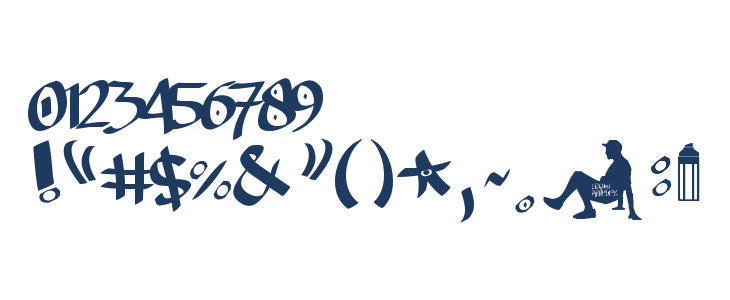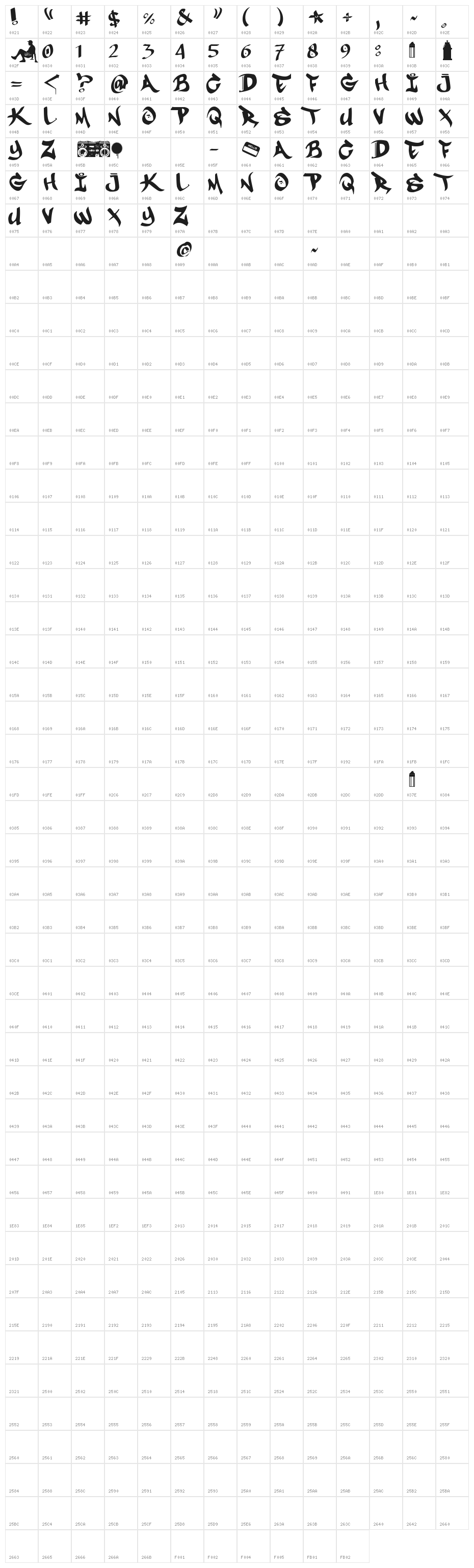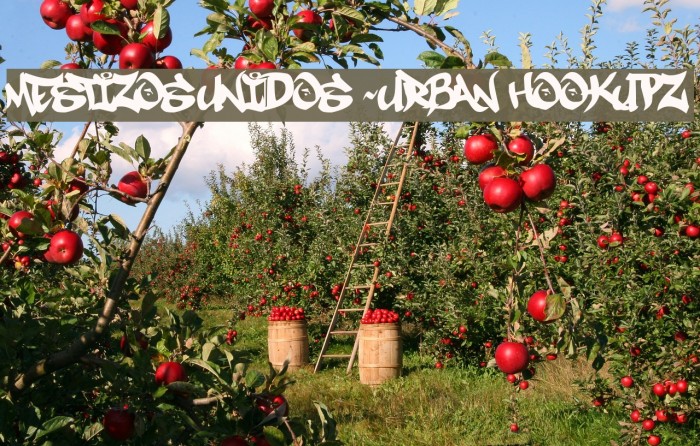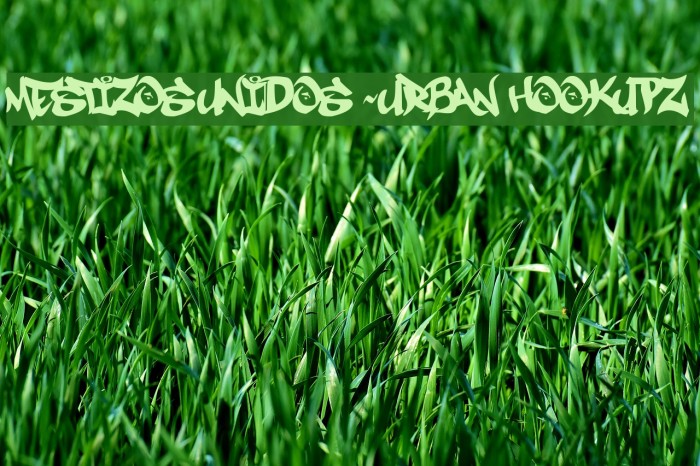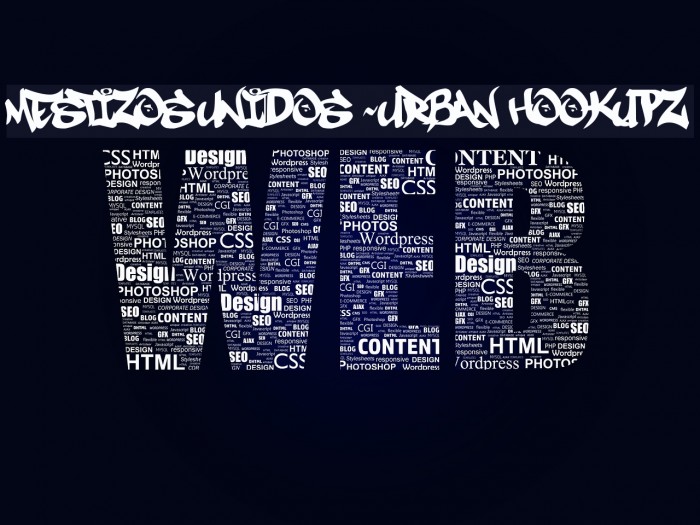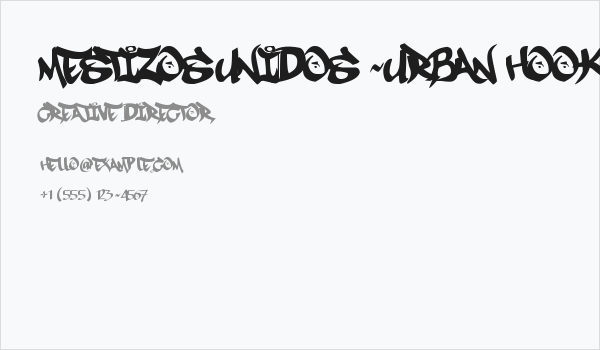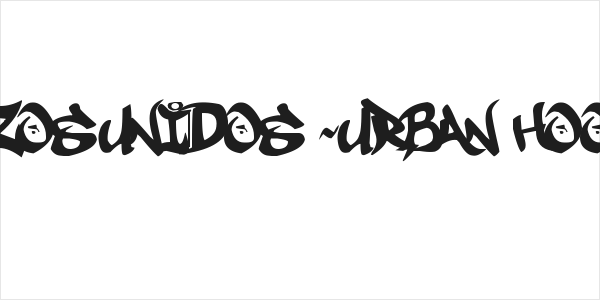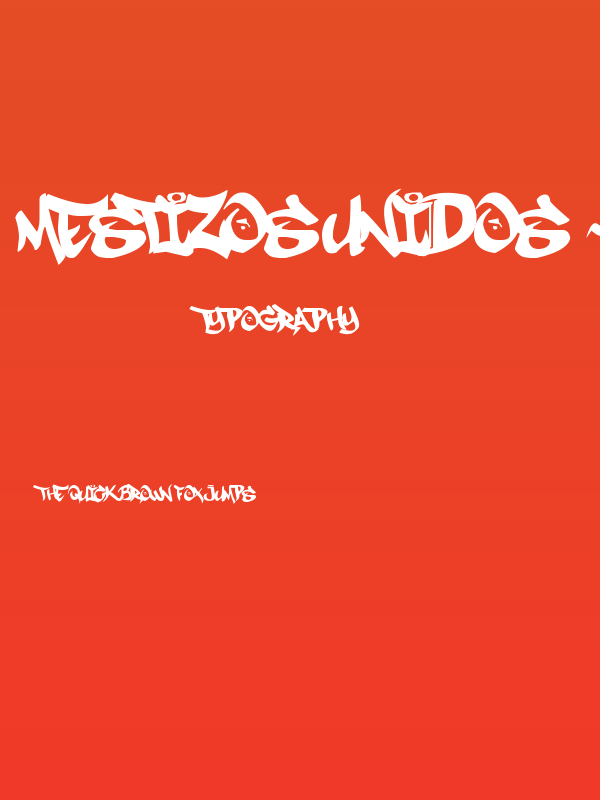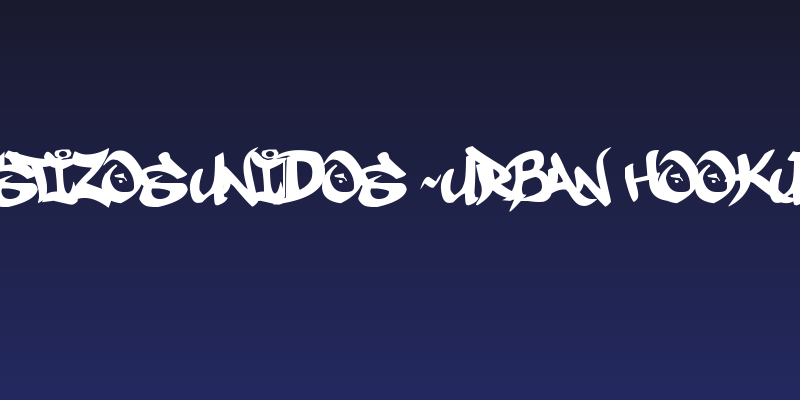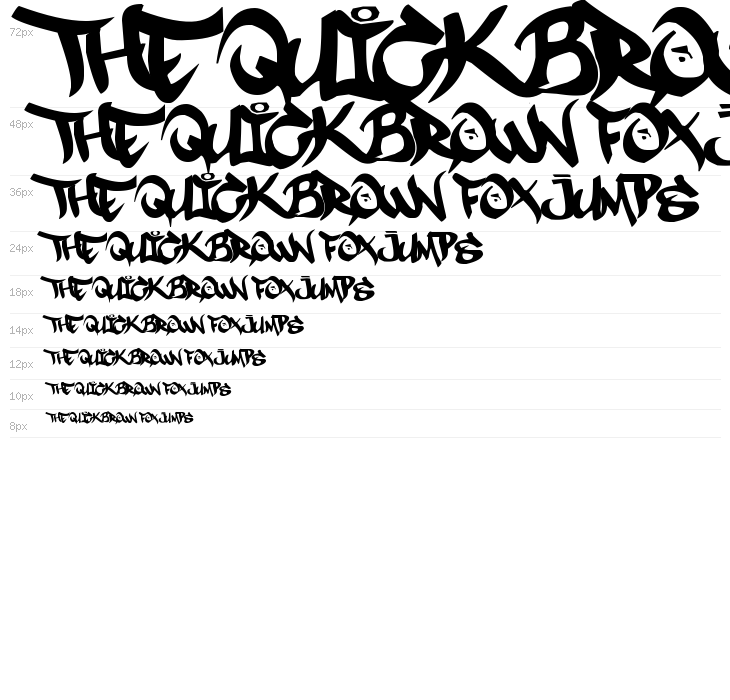
MESTIZOS UNIDOS -URBAN HOOKUPZ Font
MESTIZOS UNIDOS -URBAN HOOKUPZ Description
This font features a bold and dynamic graffiti style, characterized by its sharp angles and fluid curves. The letters are designed with a sense of movement and energy, making them ideal for urban and street art themes. The uppercase and lowercase letters maintain a consistent style, with exaggerated serifs and unique embellishments that give each character a distinct personality. The numbers and special characters follow the same aesthetic, ensuring a cohesive look across all text elements. This font is perfect for projects that require a bold, expressive, and artistic touch.
| Overall Style | Urban, Graffiti, Artistic |
| Proposed Projects | Ideal for street art designs, urban-themed posters, music album covers, and edgy branding projects. |